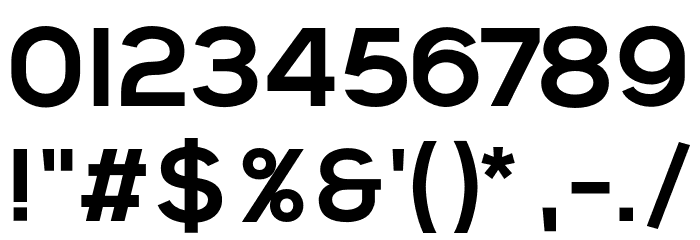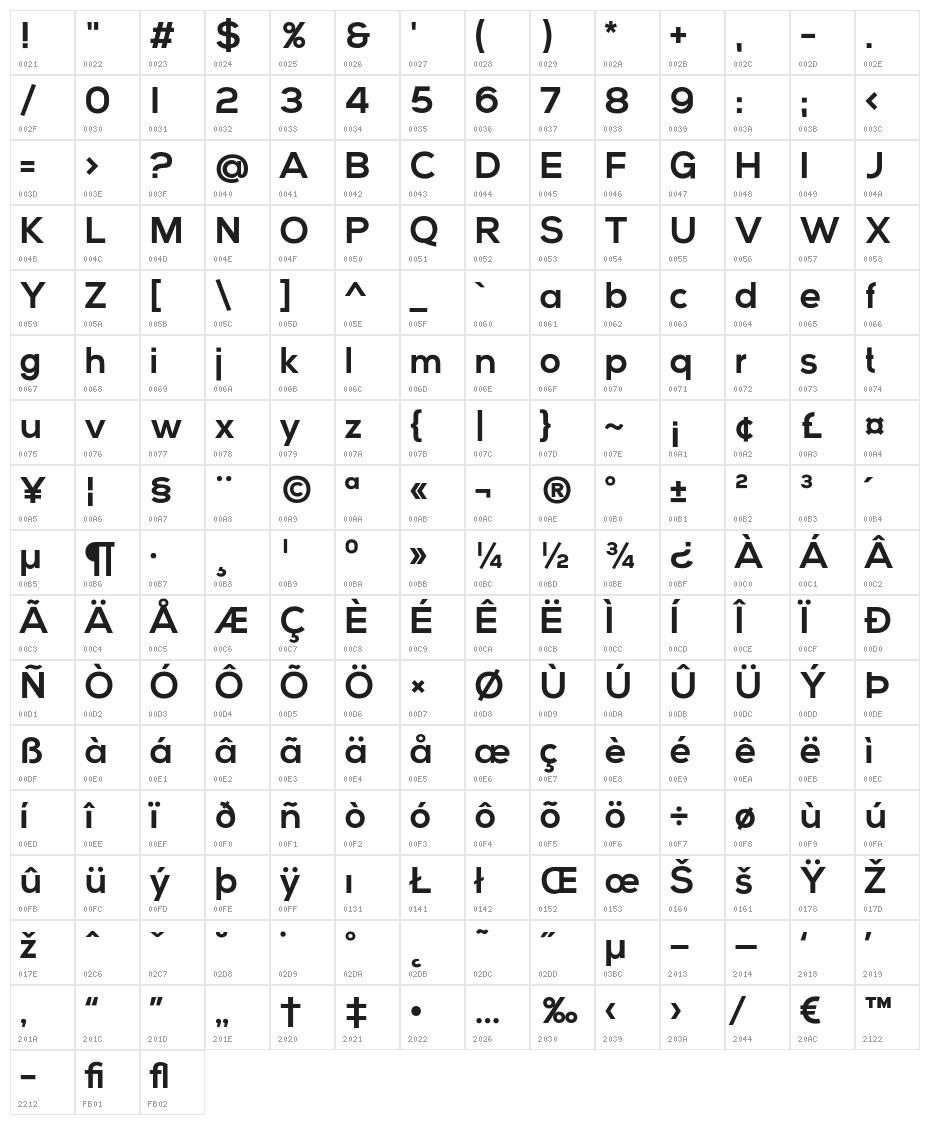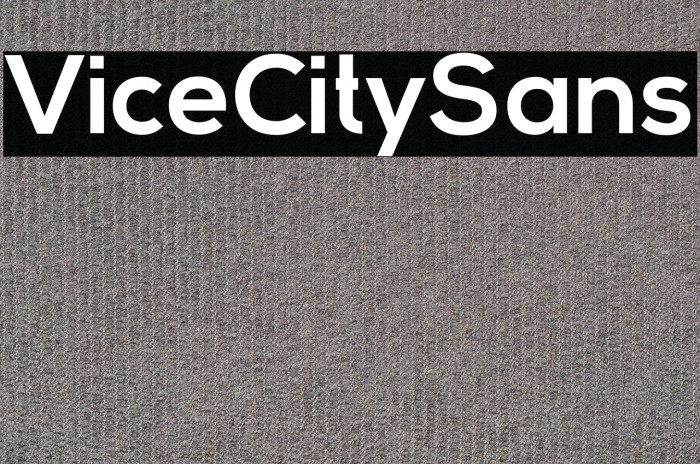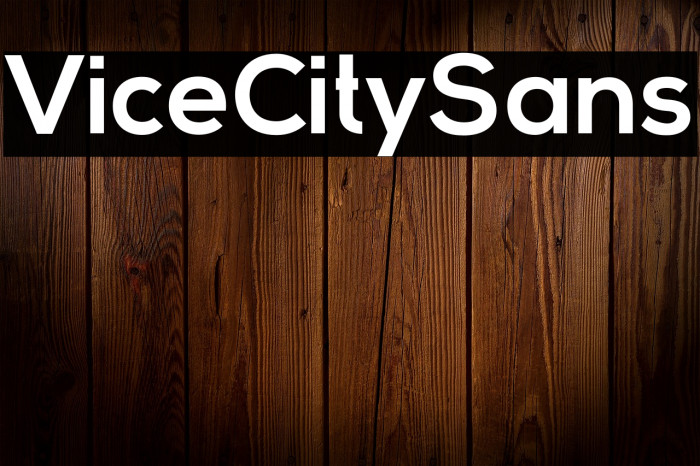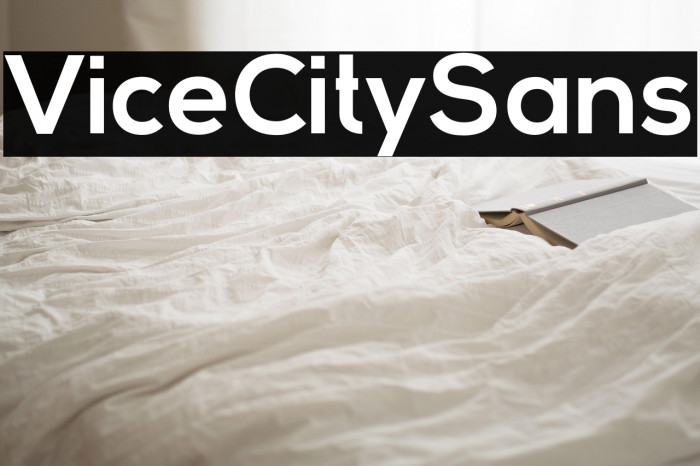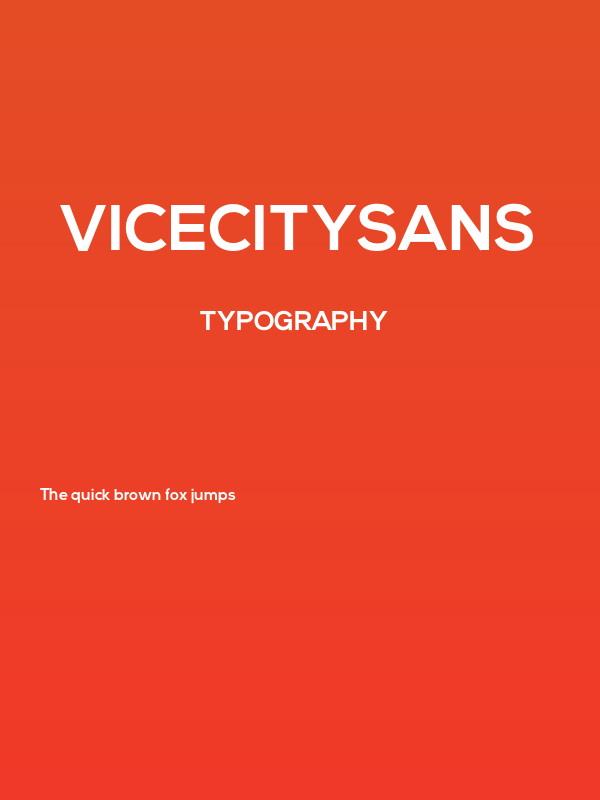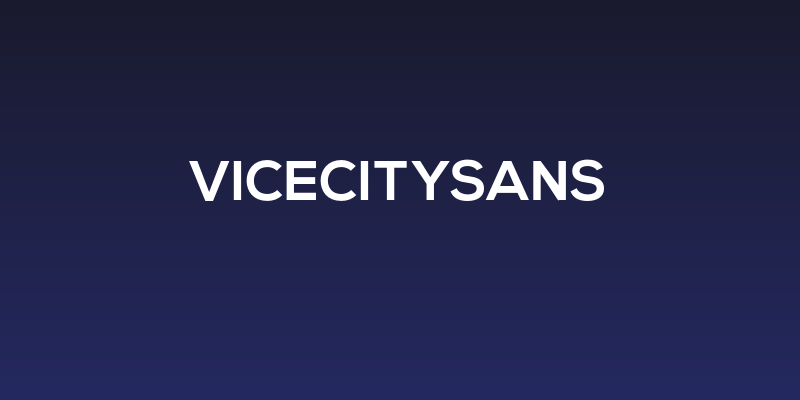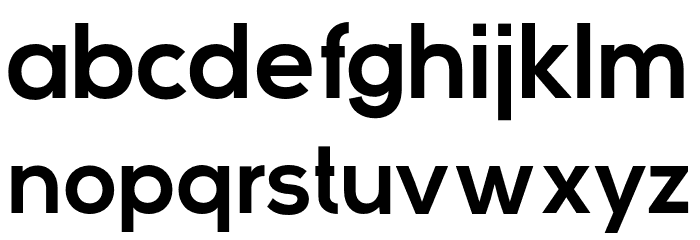
ViceCitySans Font
ViceCitySans Description
This font features a clean and modern sans-serif design, characterized by its geometric shapes and uniform stroke widths. The uppercase letters are bold and assertive, while the lowercase letters maintain a consistent and harmonious appearance. The numerals are clear and easily distinguishable, making them suitable for a variety of applications. The special characters are well-integrated, maintaining the overall aesthetic of the font. Its simplicity and clarity make it versatile for both digital and print media.